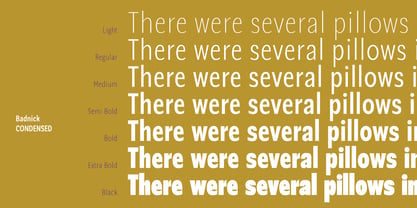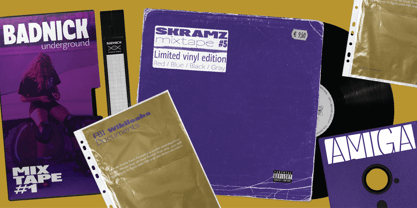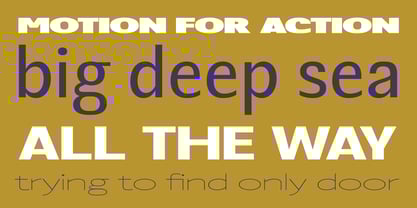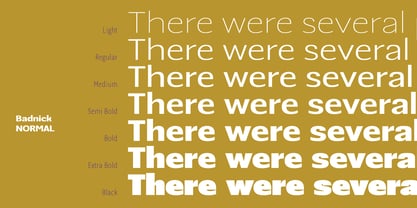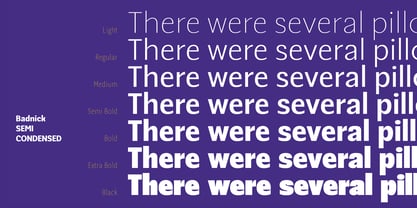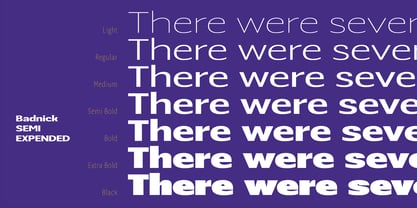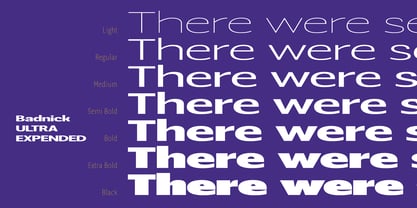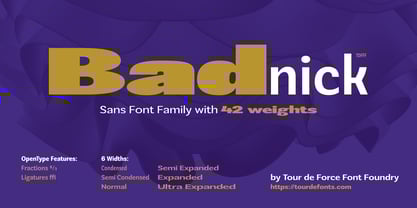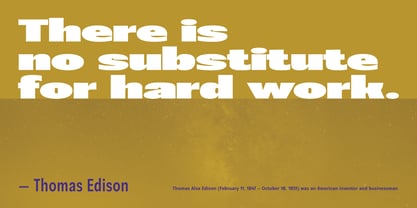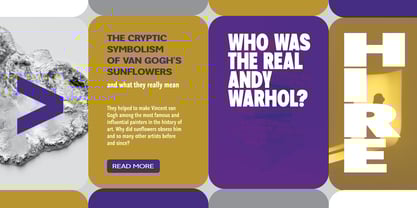
Badnick
by Tour De Force
The Badnick Font Family was designed by Dusan Jelesijevic and published by Tour De Force. Badnick contains 42 styles and family package options. More about this family
Badnick is one of our largest font families – contains 42 weights distributed in 6 widths. It is sans serif font family designed to fit everywhere cause of it's width range which goes from Condensed, Semi Condensed, Normal, Semi Expanded, Expanded to Ultra Expanded. Each width contains Light, Regular, Medium, Semi Bold, Bold, Extra Bold and Black weights.
Ideal for posters, packages, apps, websites, branding campaigns, publications, outdoor graphic... literary it will work everywhere.
Badnick covers extended Latin languages and it comes with Fractures and Ligatures as OpenType features.